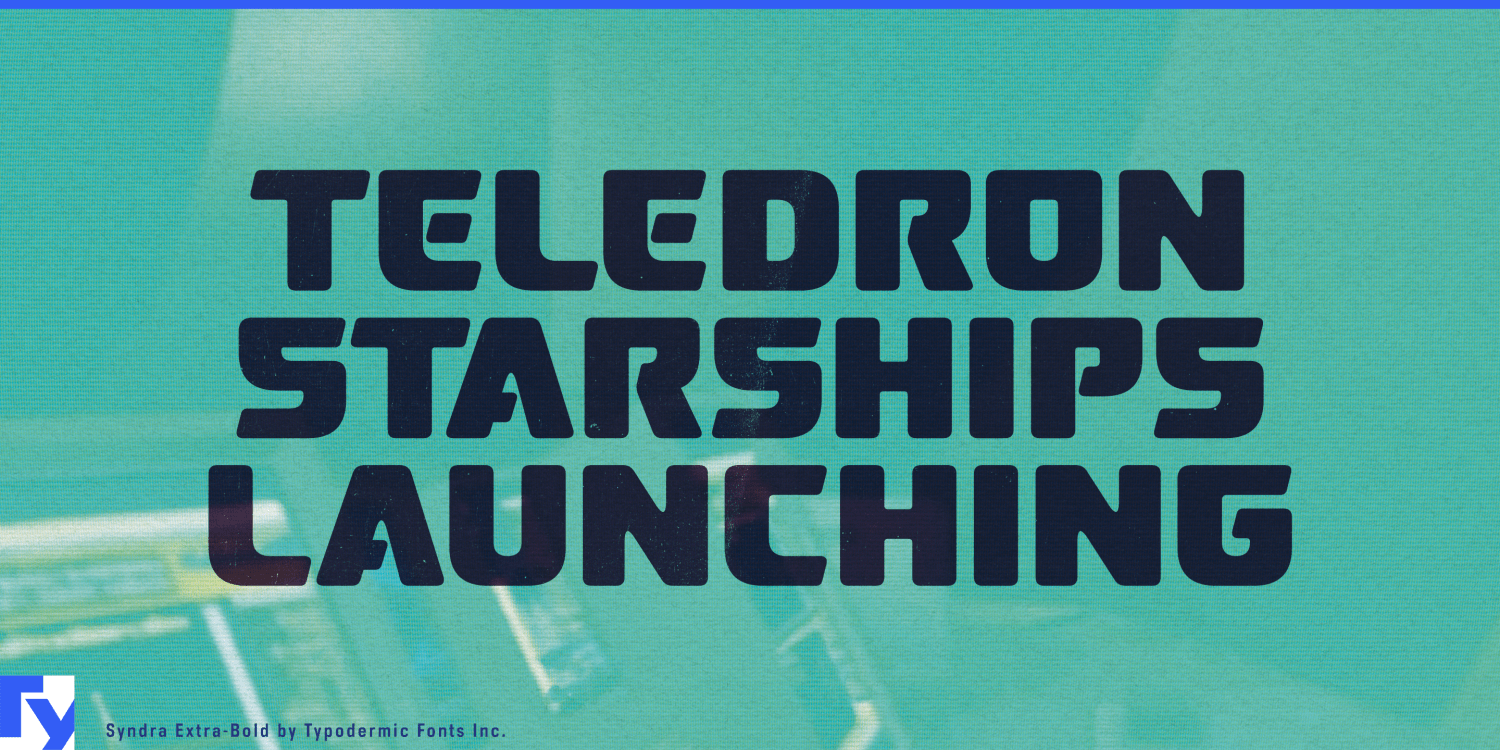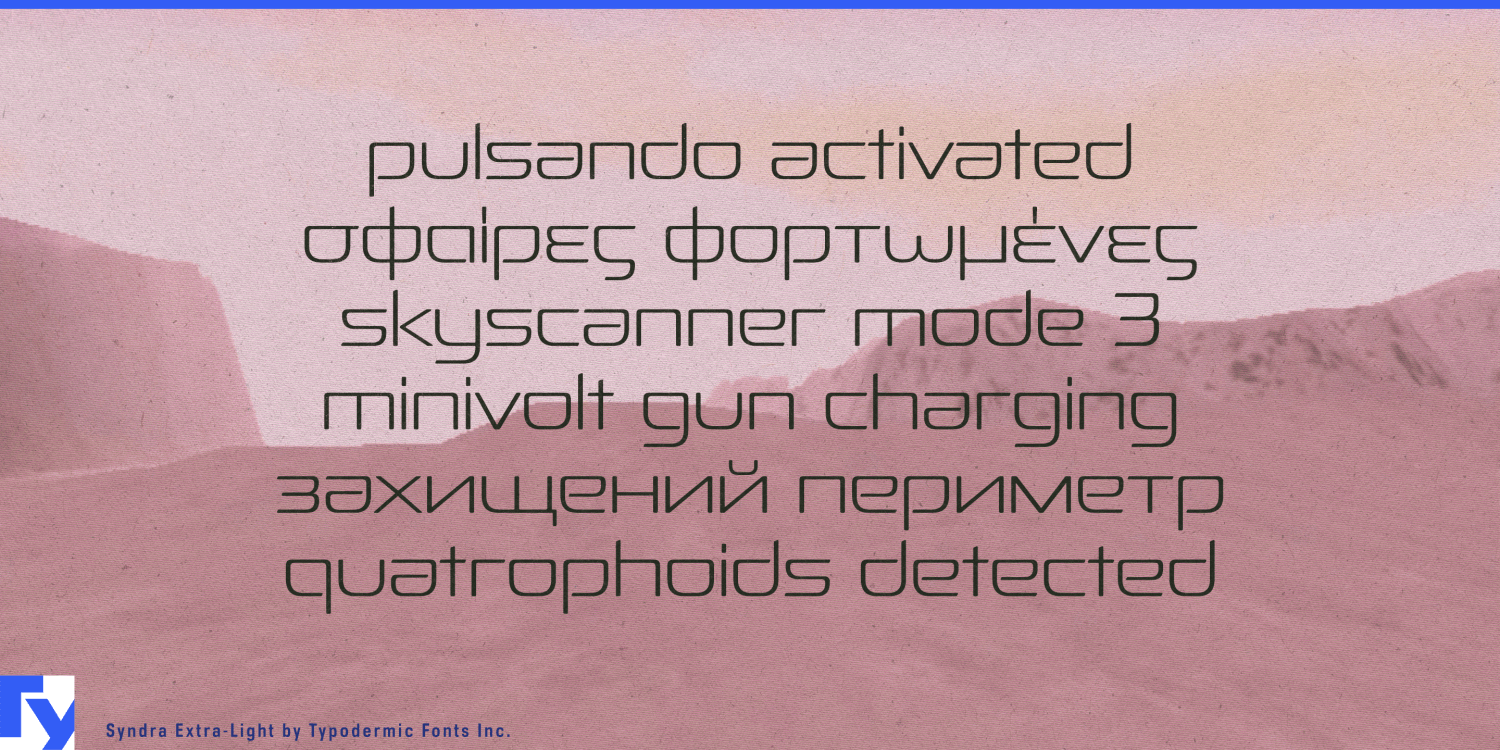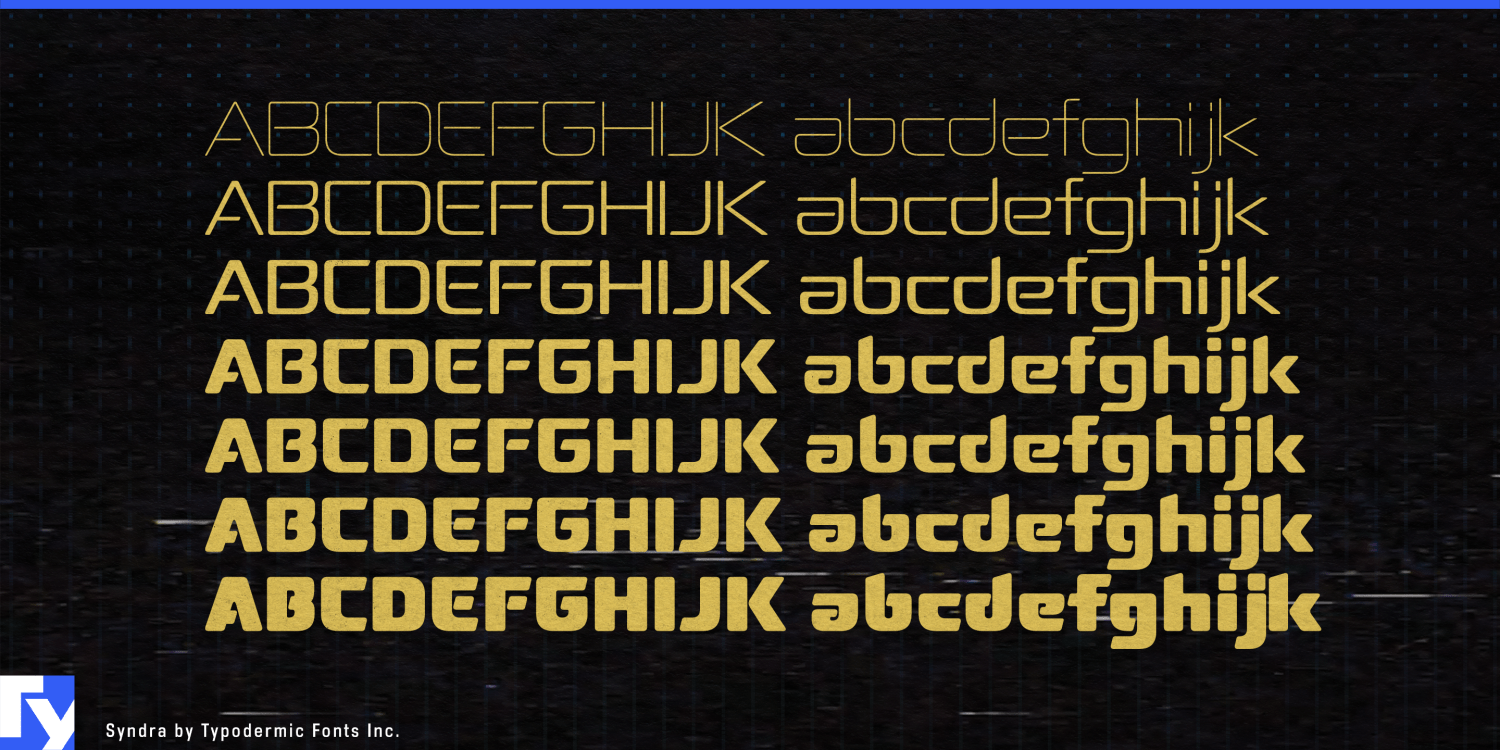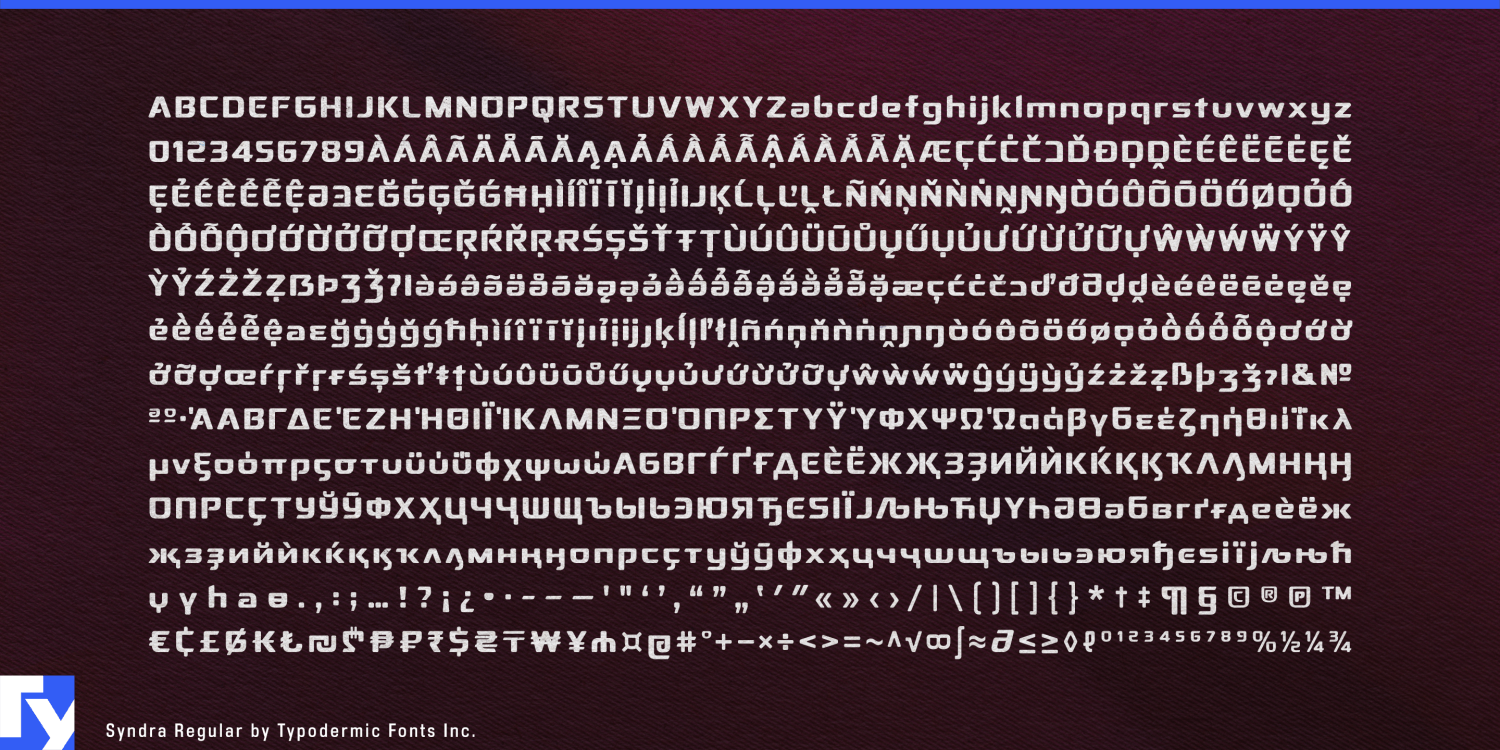
About Syndra
Step into the future with Syndra, a typeface that defies temporal boundaries. This is a time capsule from the Y2K era, catapulted into the present and beyond. Syndra’s letterforms aren’t merely designed; they’re engineered, each character…